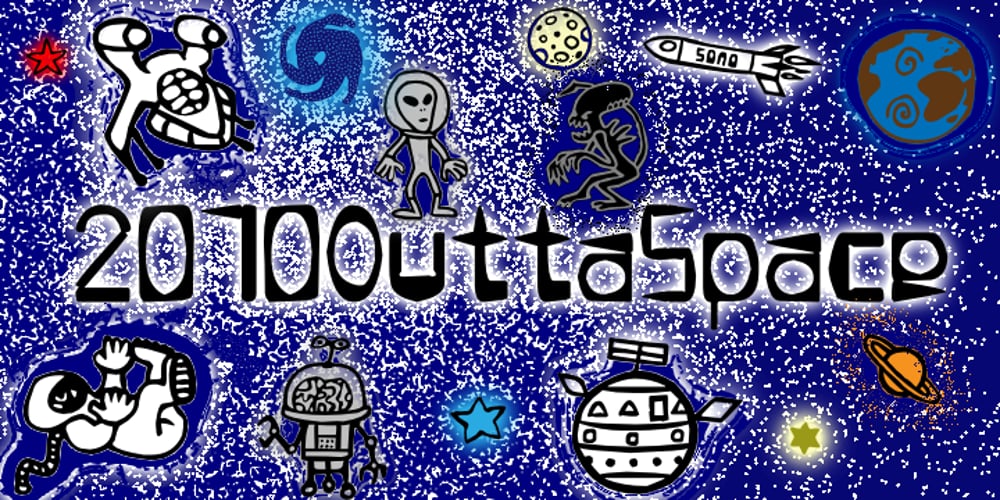
2010 Outta Space Font Family was designed by Heikki Morgan Hämäläinen and published by Morganismi. 2010 Outta Space contains 2 styles and family package options. 2010 OuttaSpace is a late space age font with geometric yet organic characters. Ideal for use in posters, cards, invitations etc. 2010 OuttaSpace Icons show you what it’s all about in the universe. 2010 OuttaSpace supports West European languages.